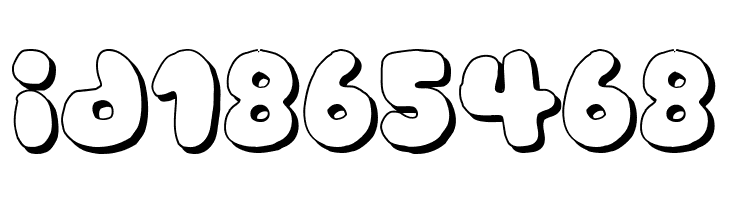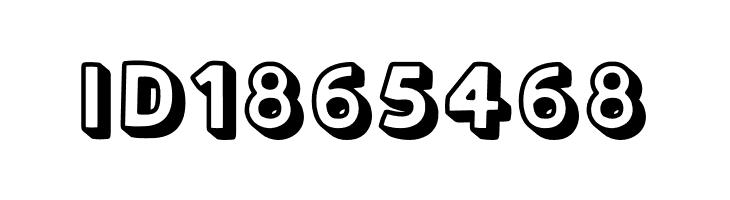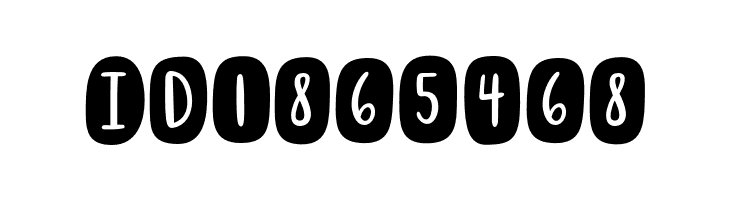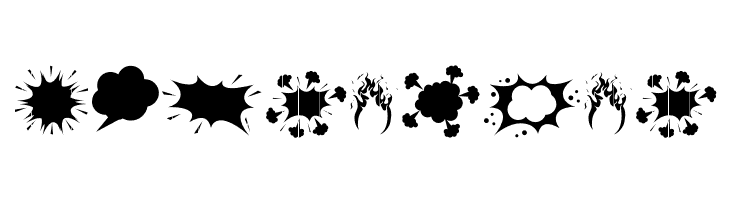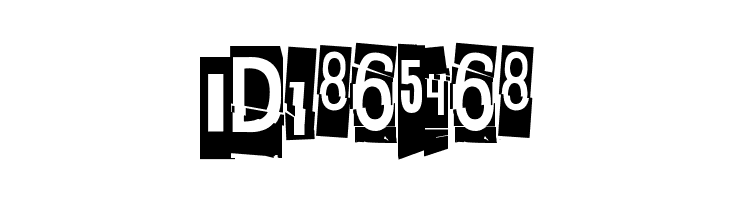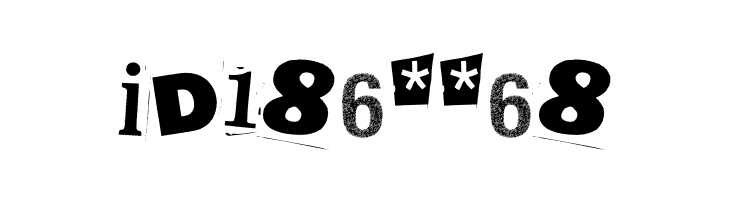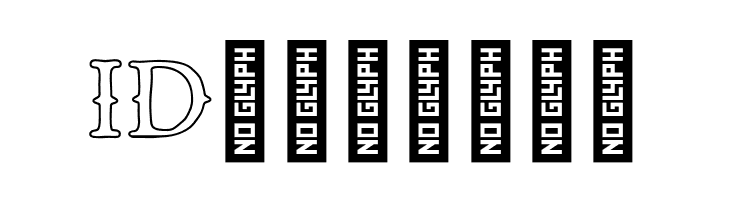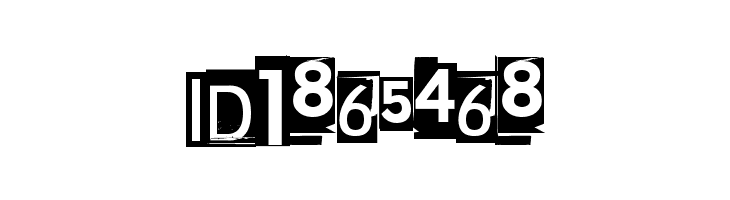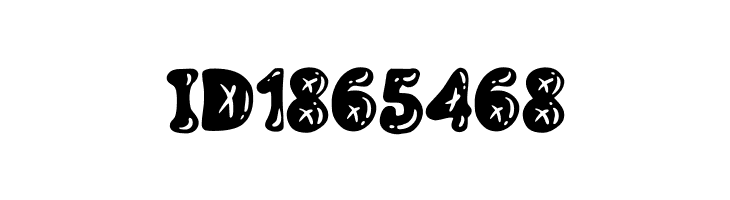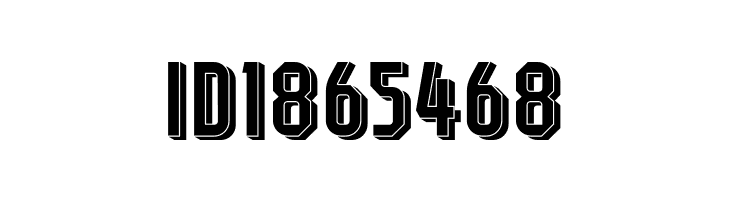
A playful, bubble-like font with bold, rounded characters and outlined edges.
A bold, playful font with a three-dimensional shadow effect.
A playful, bold font with hand-drawn characters enclosed in black ovals.
A bold, high-contrast collection of comic-style symbols for dynamic visual storytelling.
A chaotic, ransom-note style font with high contrast and eclectic character designs.
A playful, eclectic font with a cut-out, ransom note style.
Bold outline font with uppercase letters, ideal for impactful designs.
A chaotic, ransom note-style font with high contrast and eclectic character designs.
A bold, playful font with bubbly, rounded characters and whimsical cutouts.
A bold, shadowed font with a geometric, angular style ideal for striking headlines.